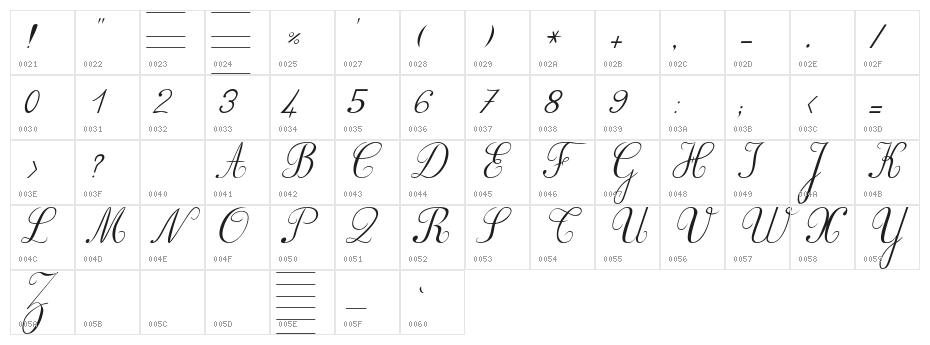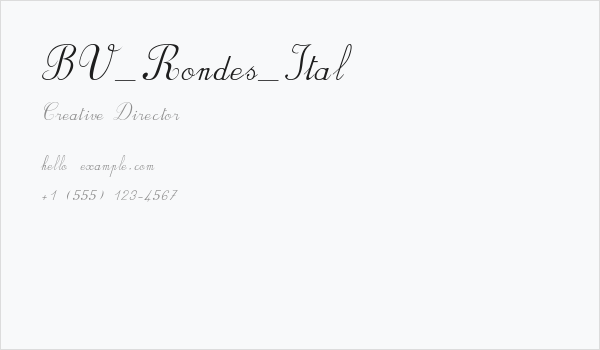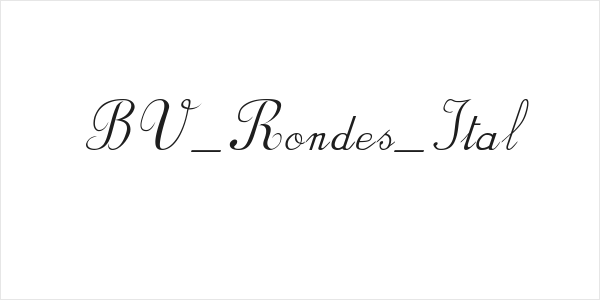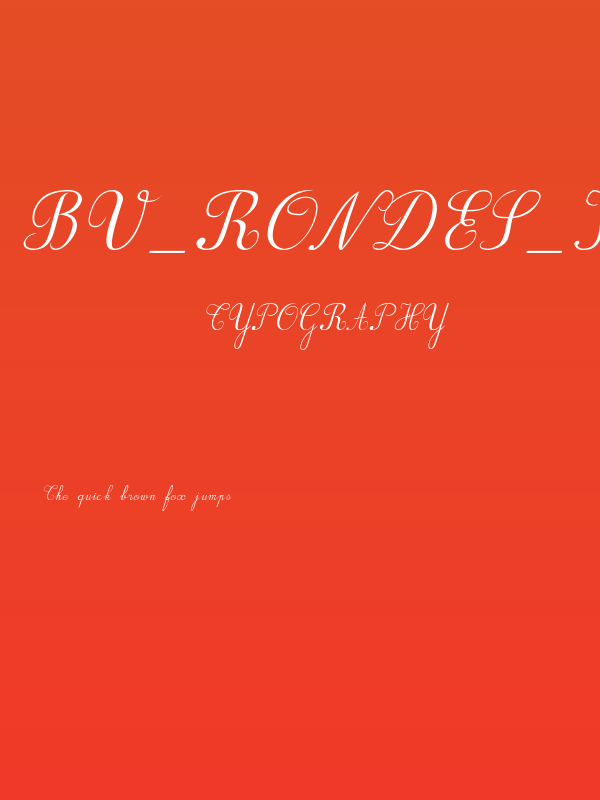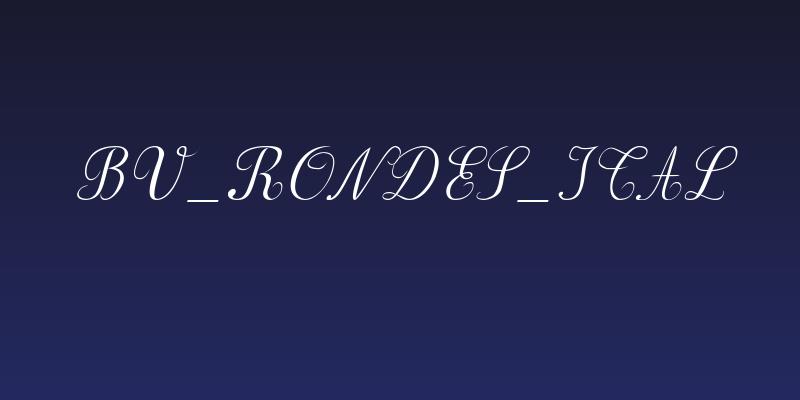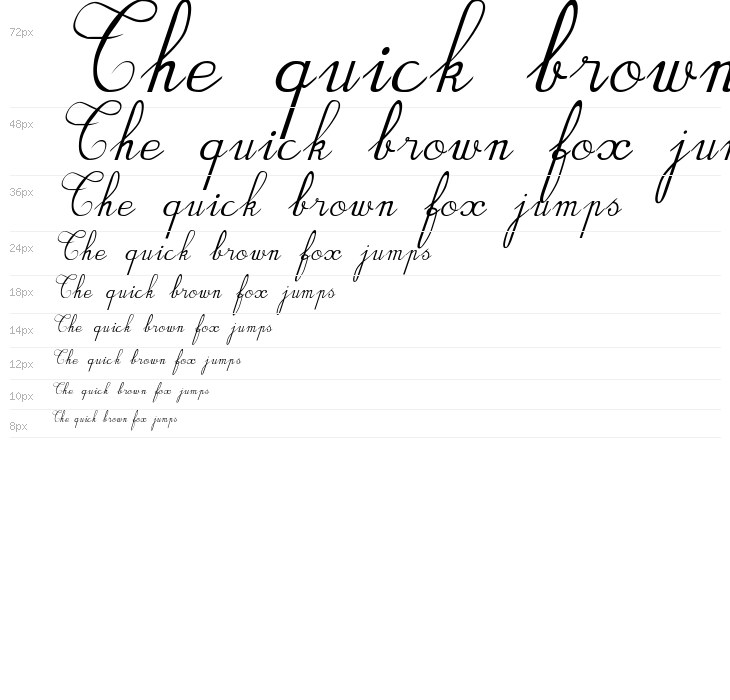
BV_Rondes_Ital Font
BV_Rondes_Ital Description
This elegant script font features flowing, cursive letters with a classic and sophisticated appearance. The uppercase characters are ornate with delicate loops and swirls, while the lowercase letters maintain a consistent, graceful flow. The numerals are stylishly curved, complementing the overall aesthetic. Special characters are designed with the same attention to detail, enhancing the font's decorative appeal. The font's thin strokes and high contrast give it a refined and polished look, making it suitable for formal and elegant designs.